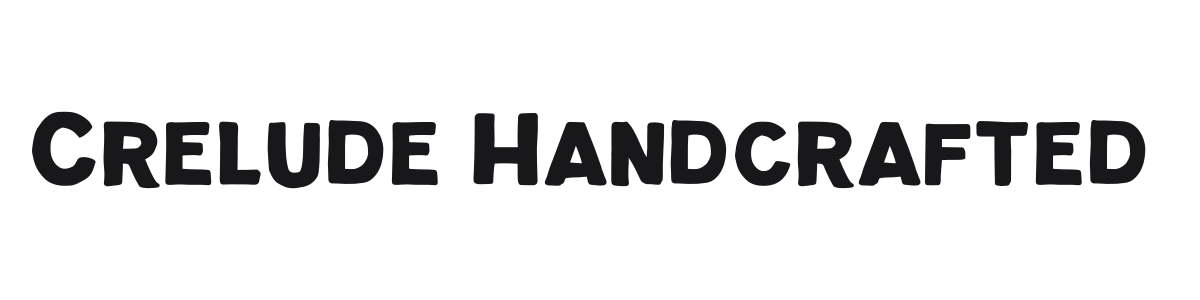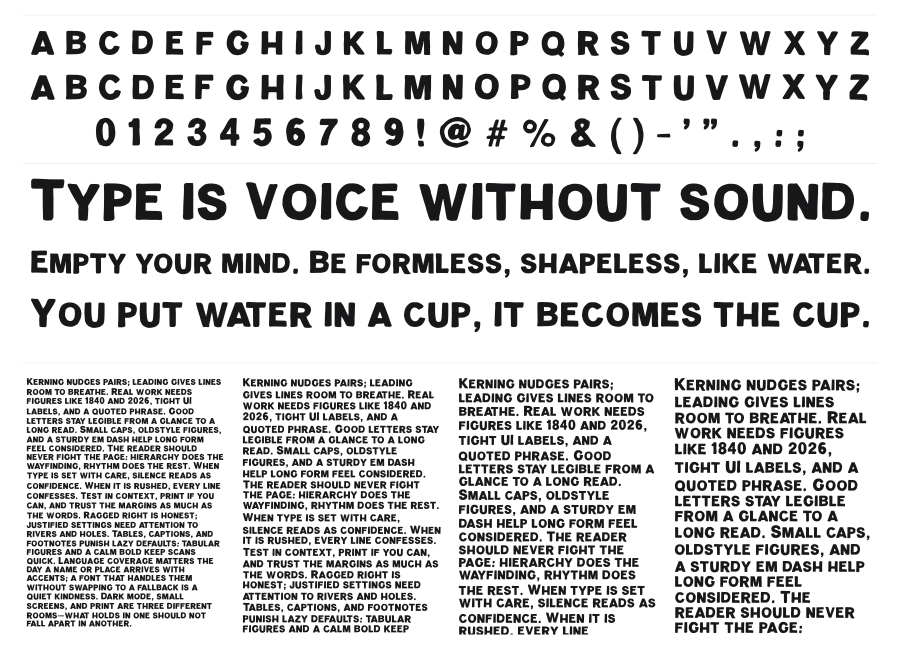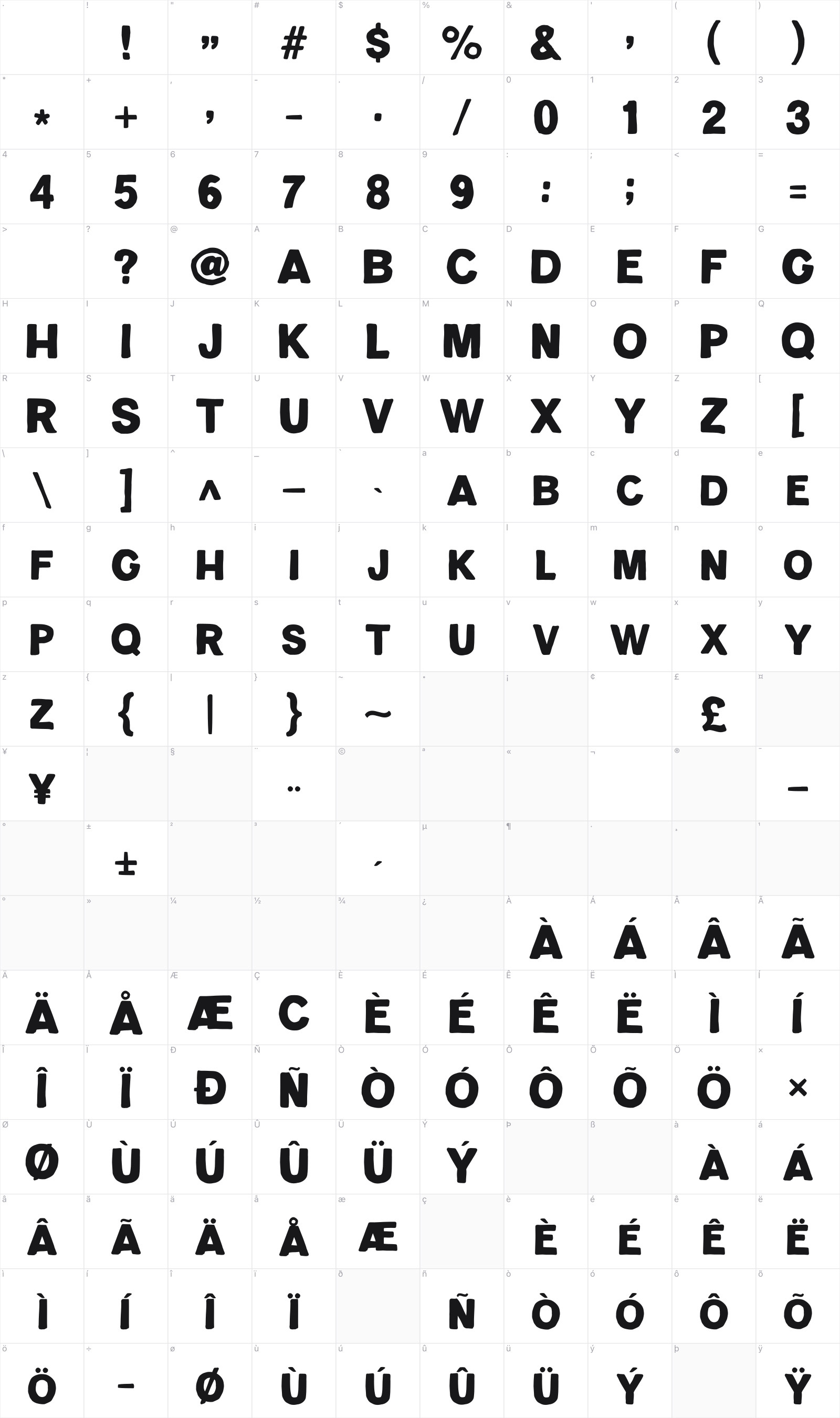
Crelude Handcrafted
Crelude Handcrafted is a heavy, hand-painted sans-serif with deliberately imperfect edges and uneven strokes that give it an authentic DIY quality. The thick, rounded characters feel bold without being mechanical, sitting somewhere between a brush-painted sign and a rubber stamp. It brings immediate warmth and handmade character to headlines, packaging, and branding.